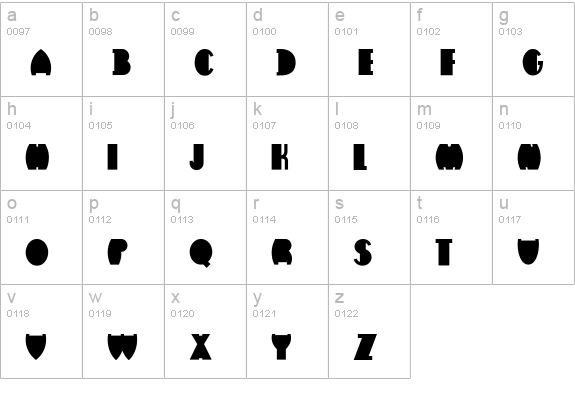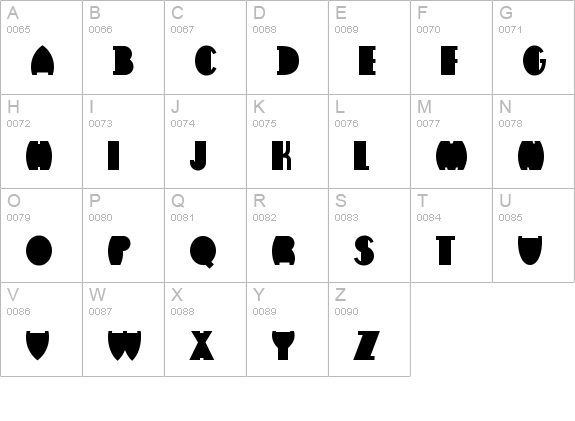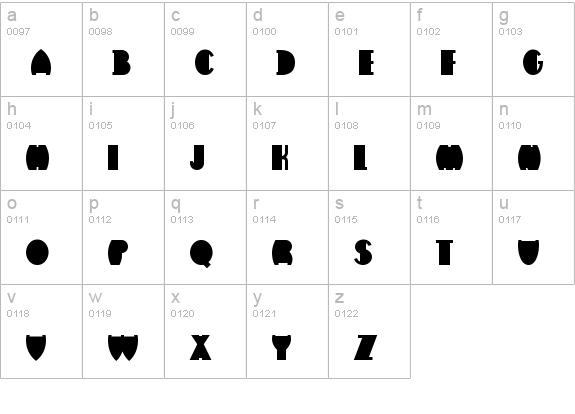
Flatiron NF is a modern and stylish typeface that exudes sophistication and elegance. Its sleek lines and sharp angles give it a contemporary feel while maintaining a classic appeal. Perfect for both headlines and body text, this versatile font is sure to make any design stand out. The best part? Flatiron NF is available for free download at FontsMarket.com, making it accessible to anyone looking to elevate their projects with a touch of sophistication. Whether you're designing a website, creating a logo, or working on a print project, Flatiron NF is the perfect choice for adding a touch of class to your work. Download it today and see the difference it can make in your designs.